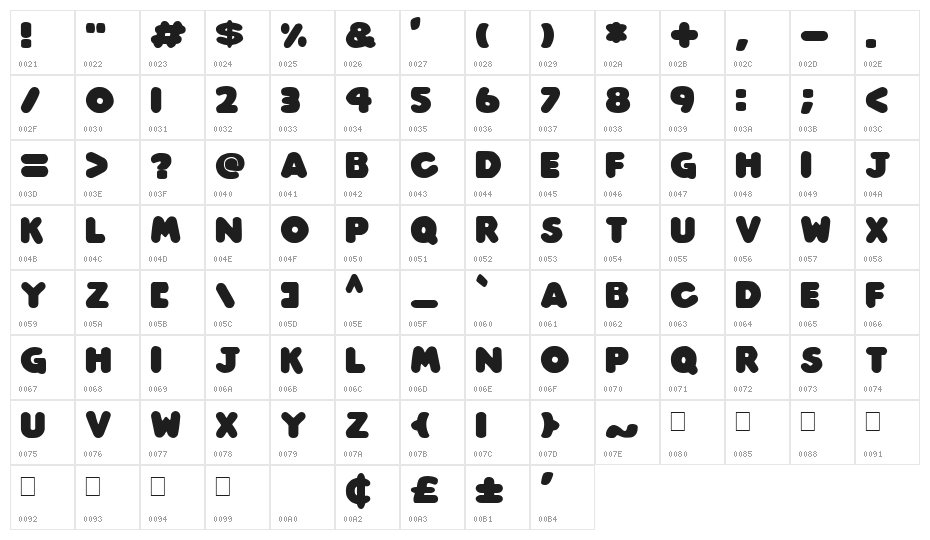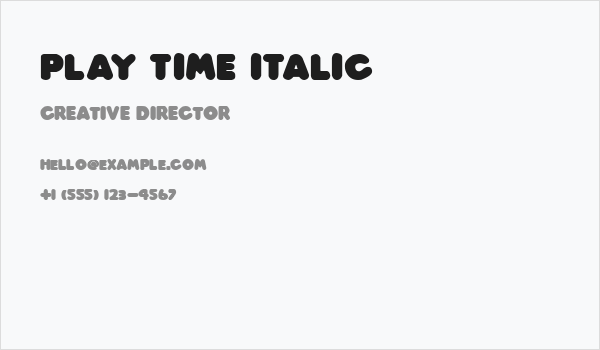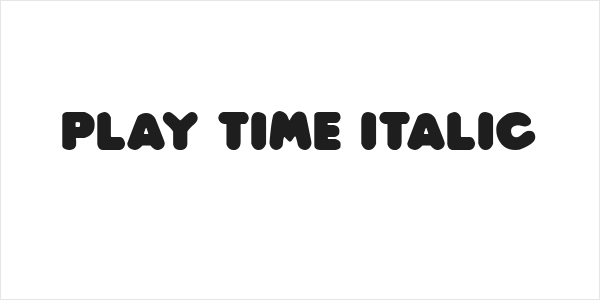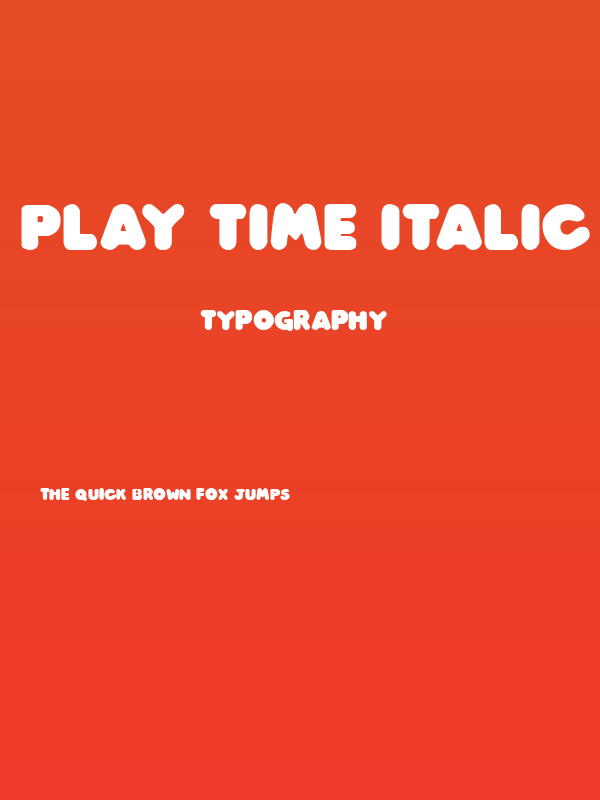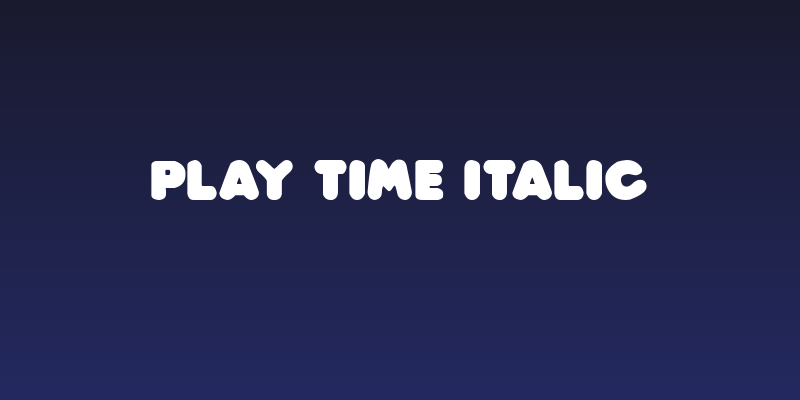
Play time Italic Font
Play time Italic Description
This playful and bold font features rounded, bubbly characters that convey a sense of fun and whimsy. The letters are thick and have a uniform stroke width, giving them a strong presence on the page. The overall design is reminiscent of childhood and playfulness, making it ideal for projects that aim to capture a lighthearted and joyful tone. The characters are evenly spaced, ensuring readability while maintaining a cohesive look. This font is perfect for creating eye-catching headlines, playful branding, or any design that requires a touch of fun and creativity.
| Overall Style | Playful, Fun |
| Proposed Projects | Ideal for children's books, playful branding, party invitations, and fun posters. |